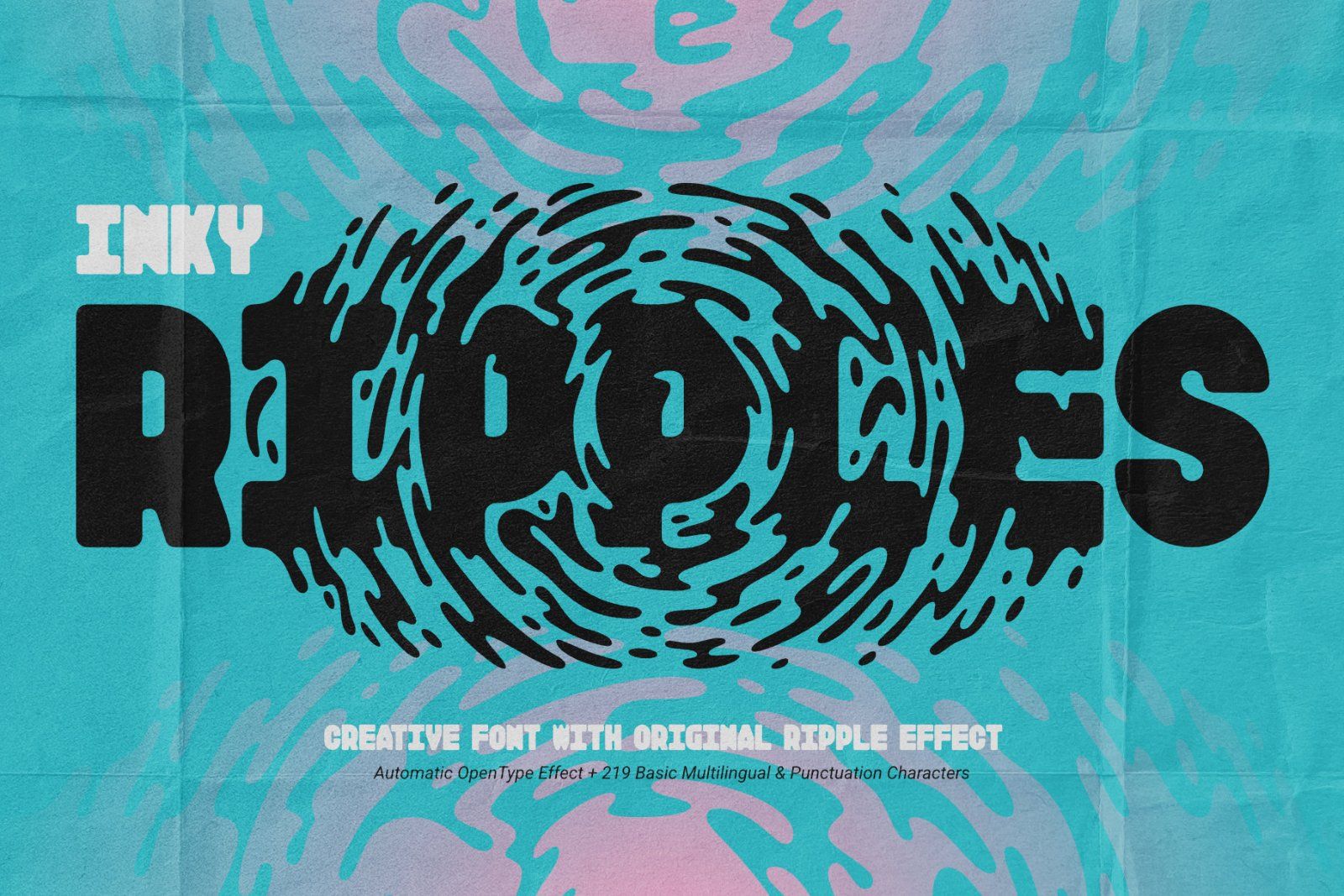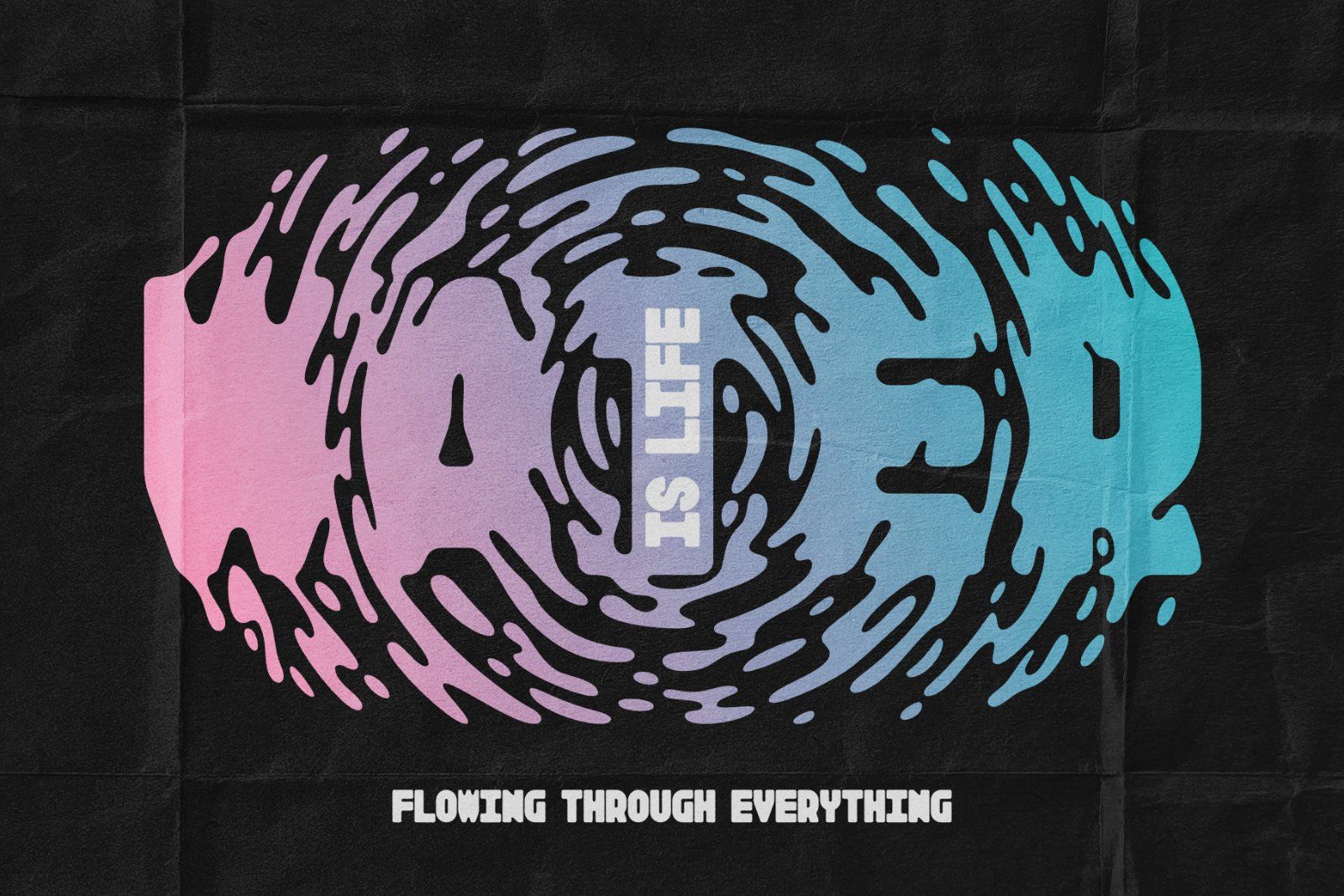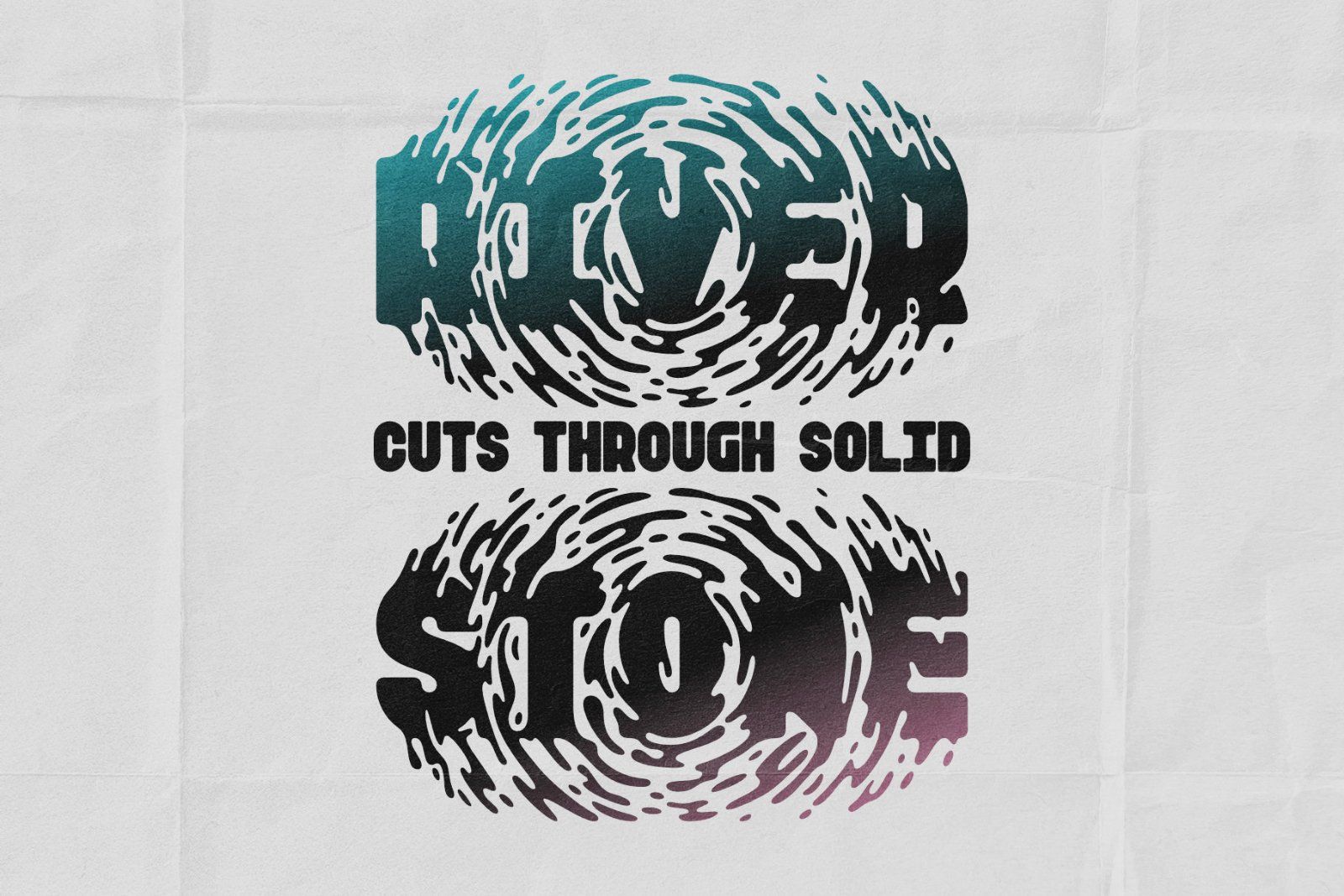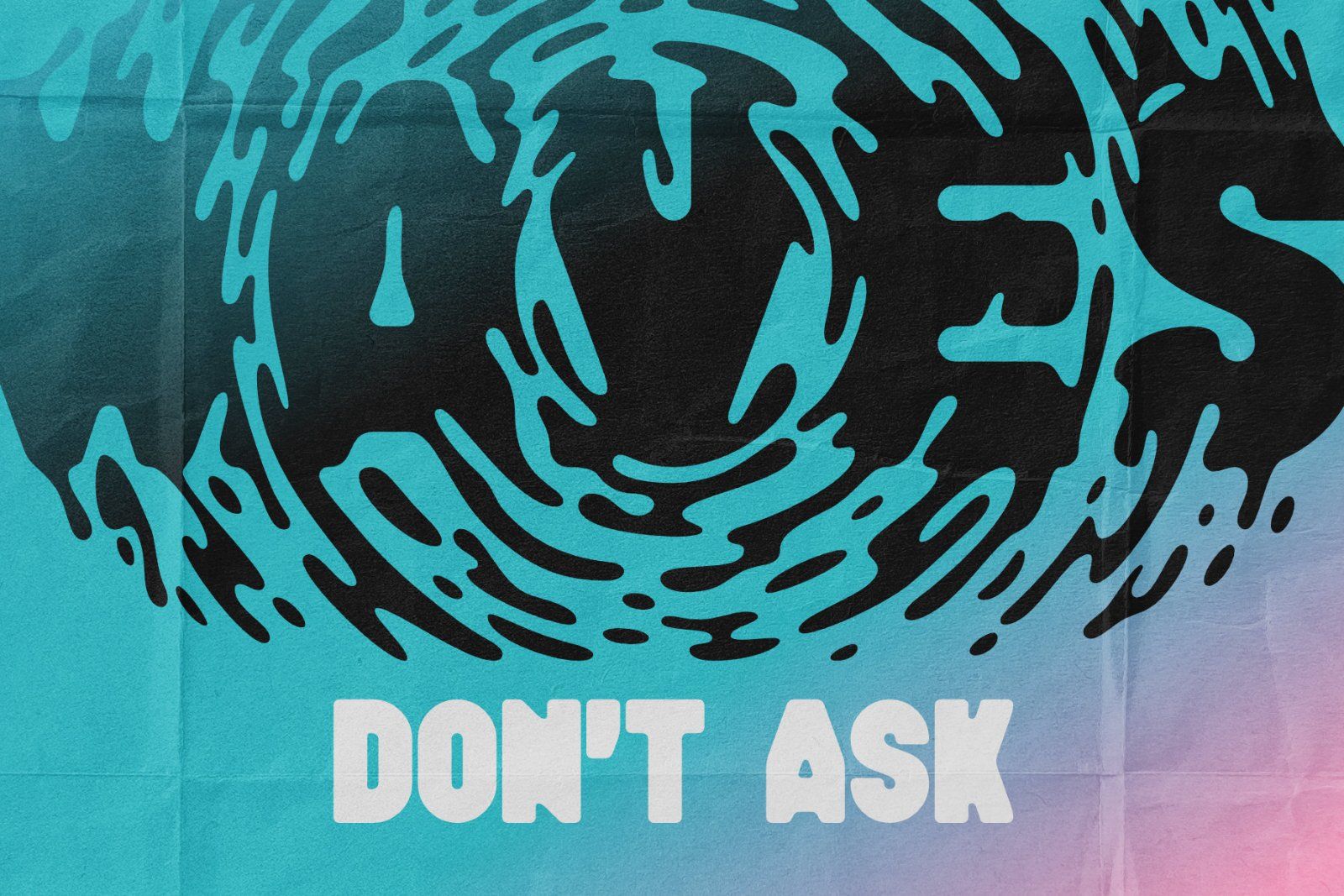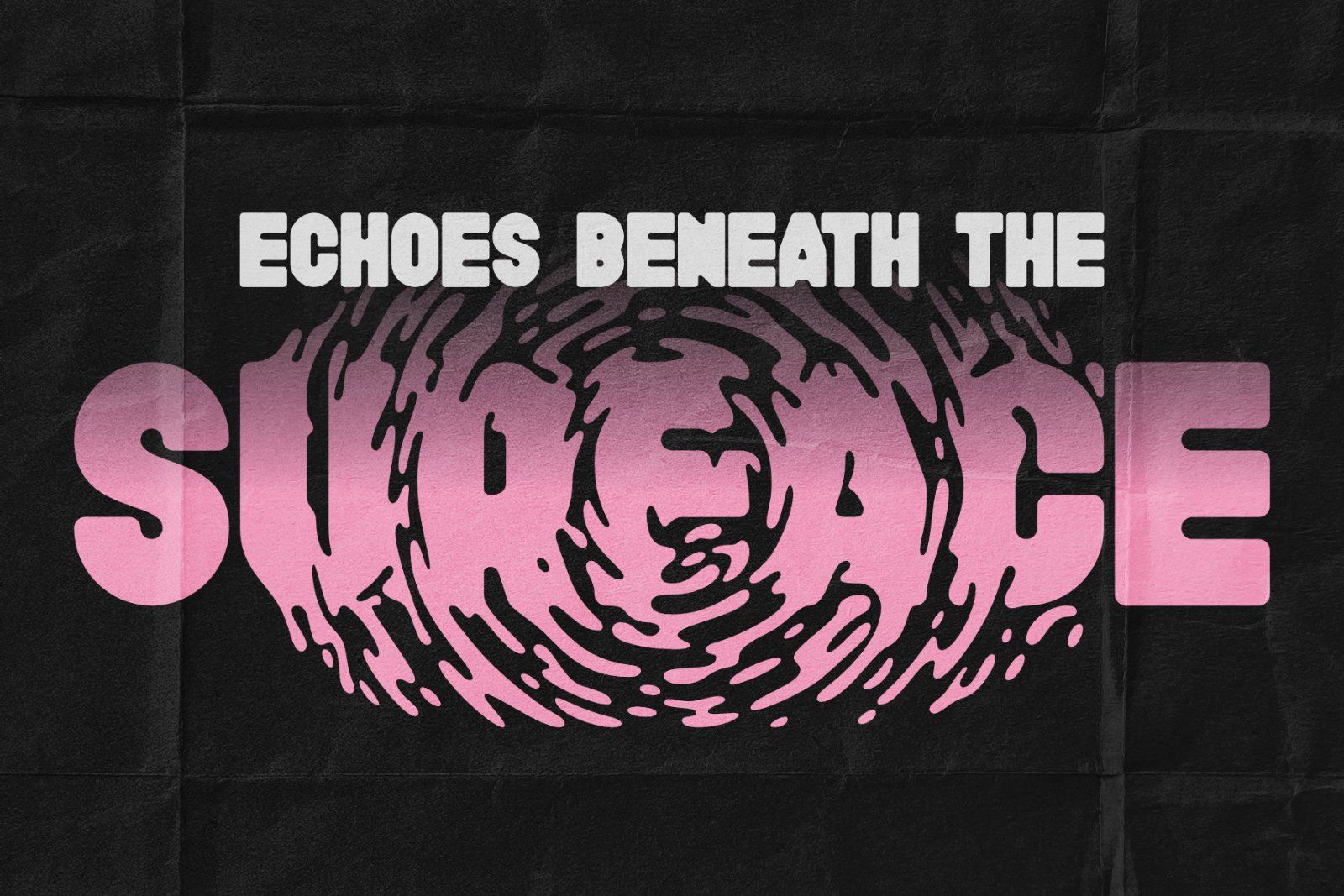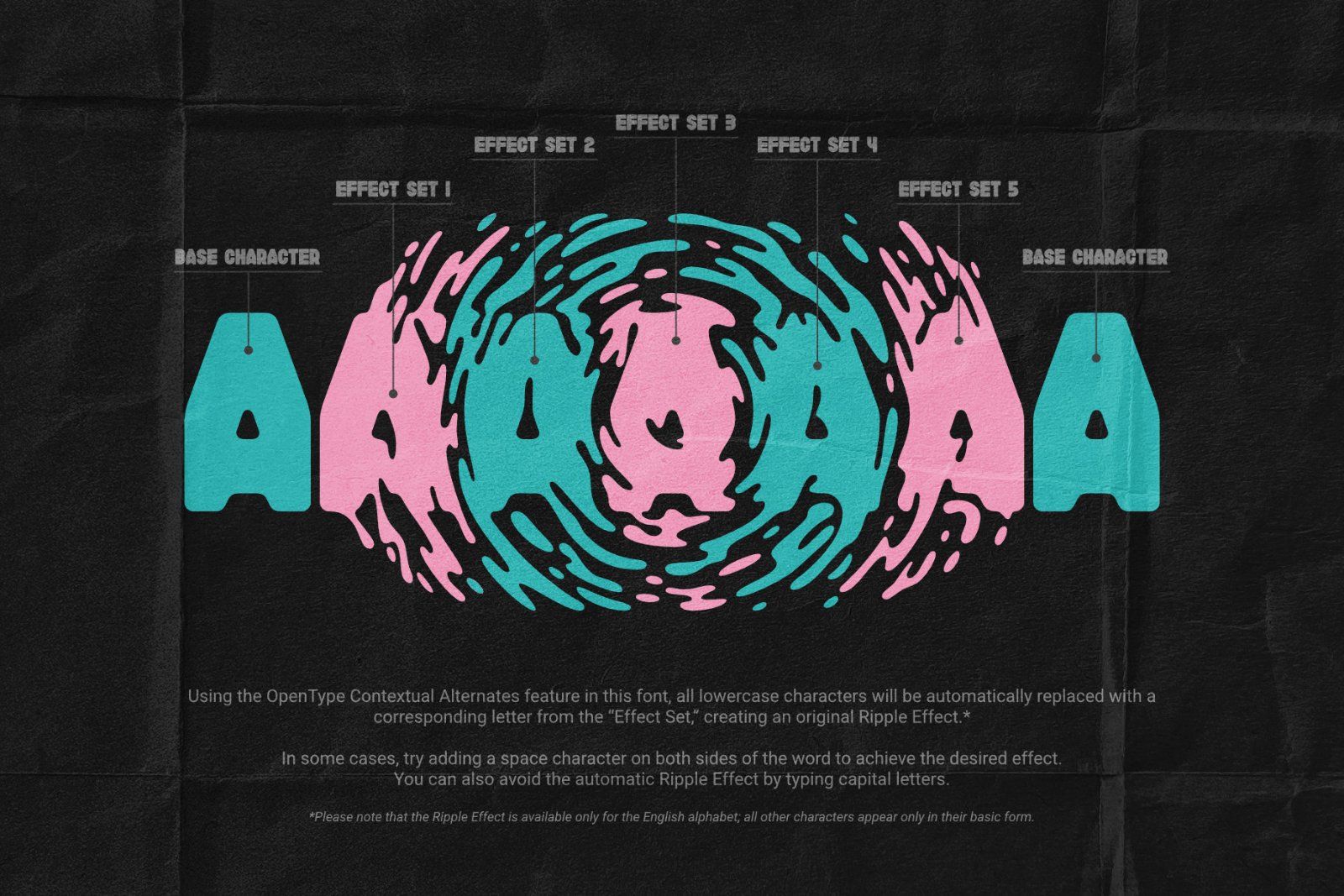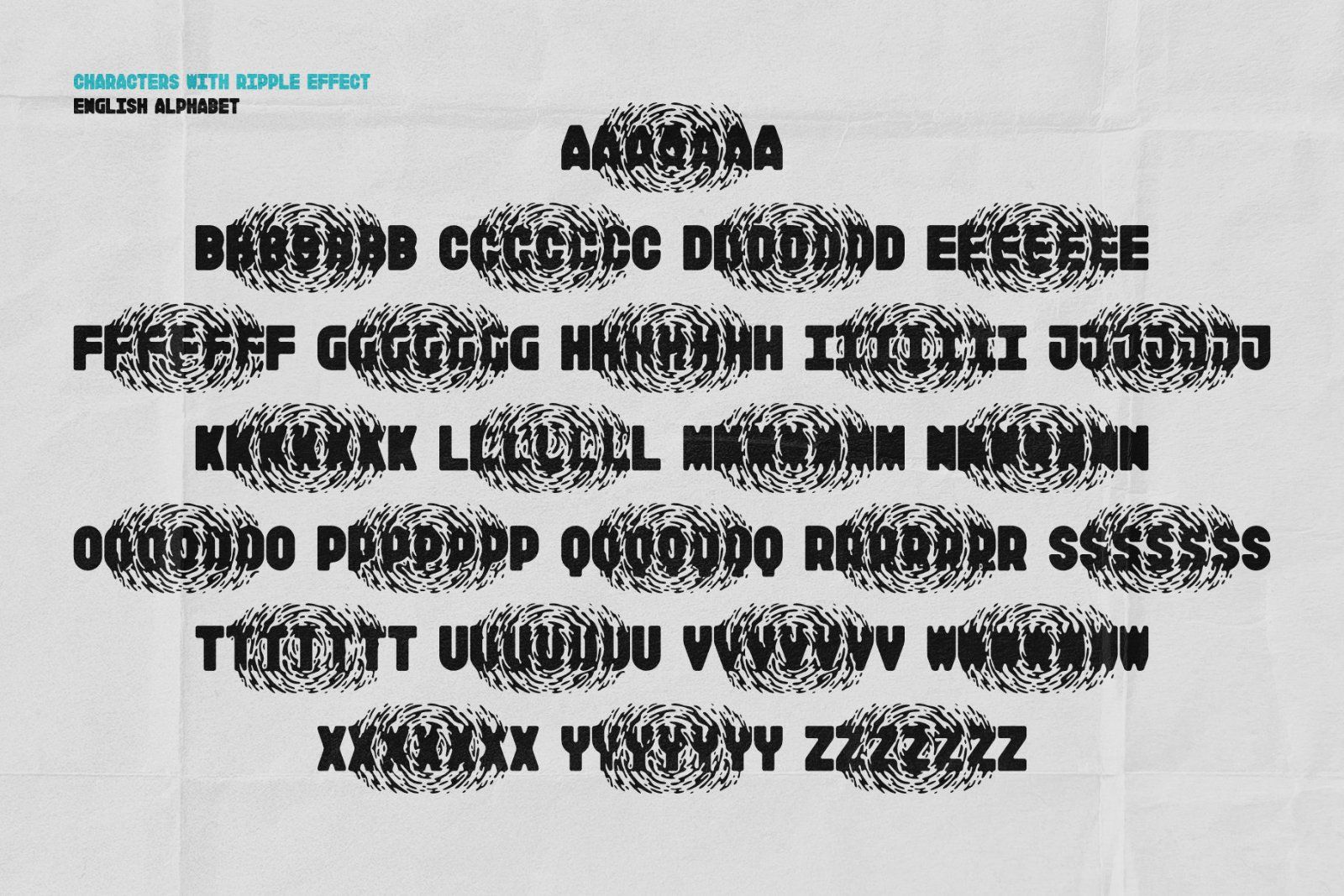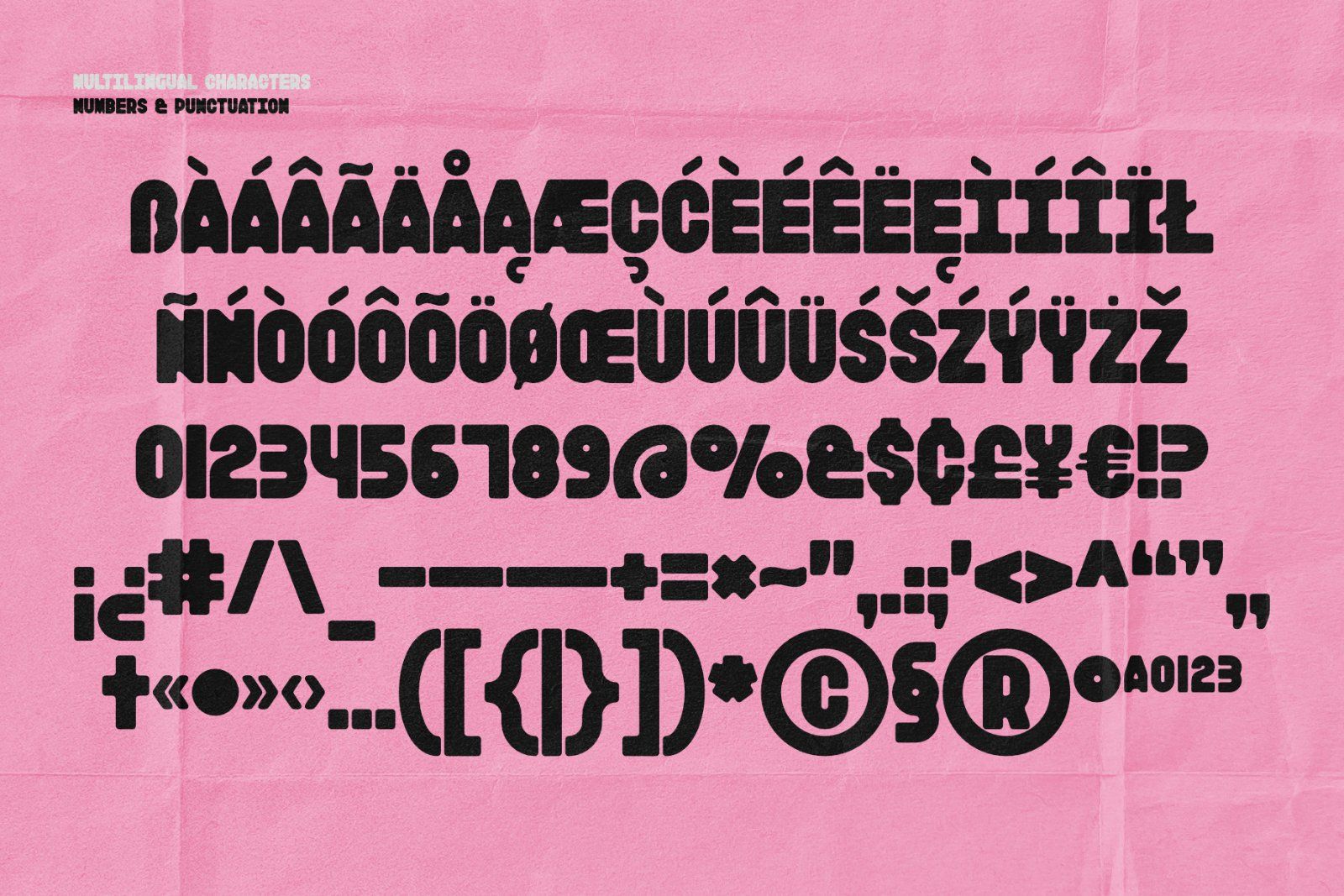
Introducing Inky Ripples, a creative font with an original ripple effect. It includes five special characters for each letter of the English alphabet (130 glyphs in total), allowing you to create smooth, seamless lettering. Using the OpenType Contextual Alternates feature in this font, all lowercase characters will be automatically replaced with a corresponding letter from the “Effect Set,” creating an original Ripple Effect.*
In some cases, try adding a space character on both sides of the word to achieve the desired effect. You can also avoid the automatic Ripple Effect by typing capital letters.
*Please note that the Ripple Effect is available only for the English alphabet; all other characters appear only in their basic form.